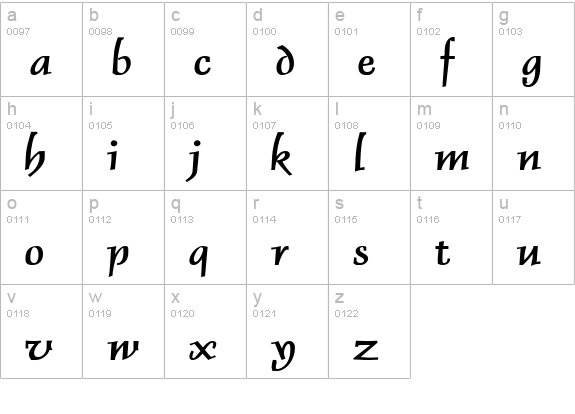
Dolphin Wide Bold is a strong, high-contrast, extended-width variant in the Dolphin typeface family \xE2\x80\x94 well suited to headlines, attention-grabbing titles, and strong calls-to-action.
Dolphin Wide Bold is a sleek and modern typeface that exudes confidence and style. With its bold and wide strokes, this font is perfect for making a statement in your design projects. Whether you're creating eye-catching posters, striking headlines, or standout logos, Dolphin Wide Bold will make sure your message is loud and clear. What's even better is that Dolphin Wide Bold is available for free download at FontsMarket.com. That's right, you can easily access this versatile and dynamic font without any cost. So why wait? Elevate your designs with Dolphin Wide Bold today!